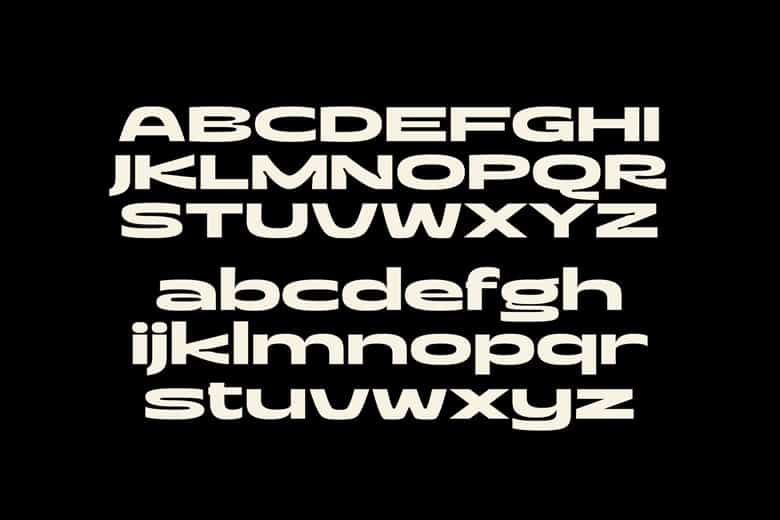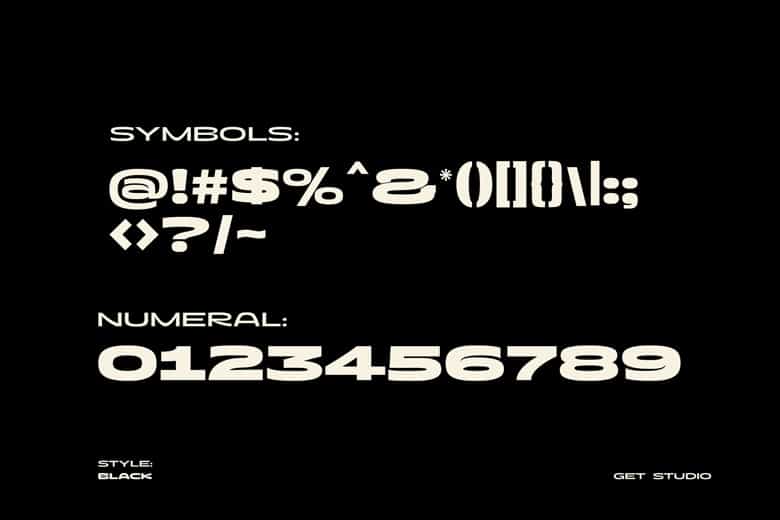
Concrete Forge – The typeface will be a fearless brutalist font with the extended shapes, which are strong and durable. Inspiring and powerful, it is a simple yet effective solution for branding and design endeavor’s. This typeface was designed to be bold and to remind us of architecture brutalism, a style which is simple and raw.